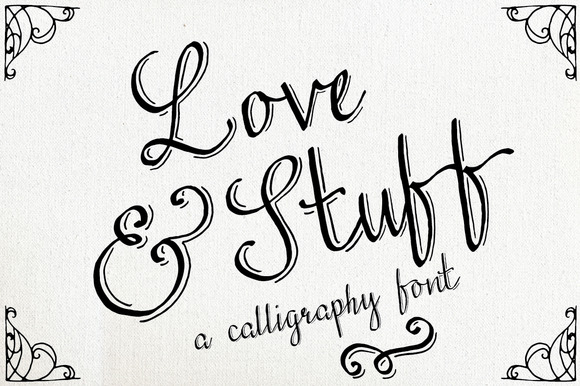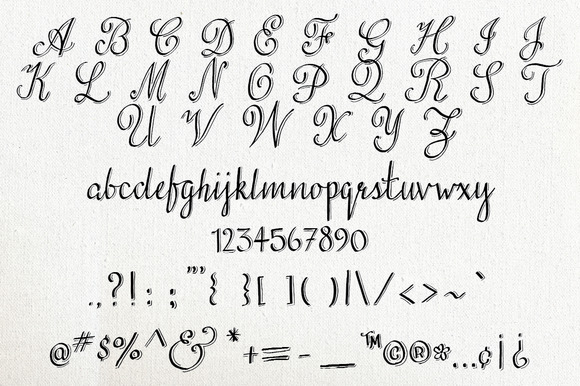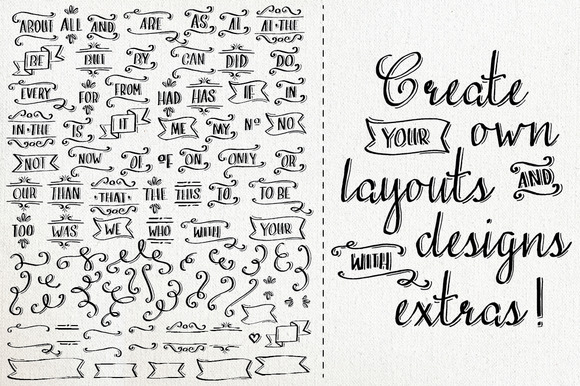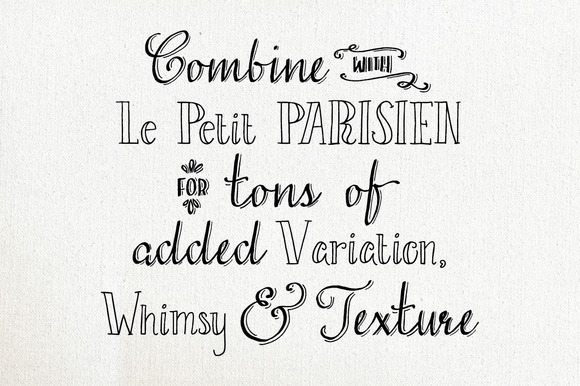
About Love & Stuff Pack Font
Love & Stuff is a wonderful looking hand writing font with great details. This font is the ultimate font for creating beautiful elegant looking wedding invites and thank you cards.
When using Love & Stuff you will give a very classy and personal touch to your designs and items.
The letters are slightly stylized with a vintage 3D effect that makes the works and letters *POP*.
The best part about this font is that it comes with an extra bonus font that contains LOADS of catchwords with beautiful designs.
The extras font contains the following catchwords:
About, All, And, Are, As, At, At The, Be, But, By, Can, Did, Do, Every, For, From, Had, Has, If, In, In The, Is, It, Me, My, No, Not, Now, Of (2x), On, Only, Or, Our, That, Than, The, THis, To, To Be, Too, Was, We, Who, With, Your and many extra swirls!